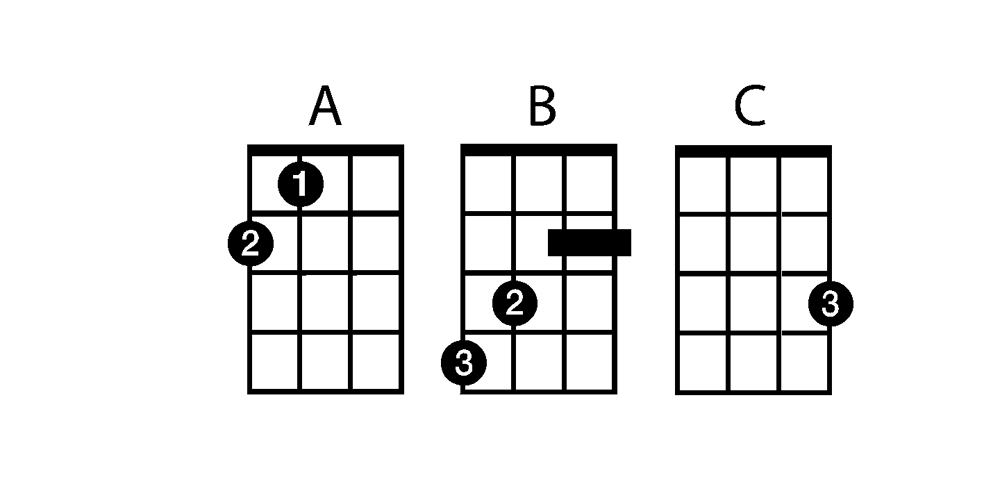
Chordette for Education Ukulele Font Family was designed by Jonathon Baxter and published by Ukefarm. Chordette for Education Ukulele contains 3 styles and family package options. What is it? Chordette for Education is a ukulele chord font created specifically for schools and individual instructors. It can be used for creating song sheets, presentations, or adding chords to videos. This education version has a basic chord set for beginners which include finger positions and an option for 3D chords. It’s a favorite tool for teachers, music therapists, and musicians. What instruments are supported? Chordette for Education supports ukulele tuned GCEA. The fonts are available in black and white for Windows and Macintosh. The 2D chords include fingering numbers and the chords can be used for song sheets, presentation software, and video tutorials. Alternate chords and 3D chords for presentations are included. Is it free? Chordette for Education is priced at $15, which includes chord font sets for both Mac and Windows.